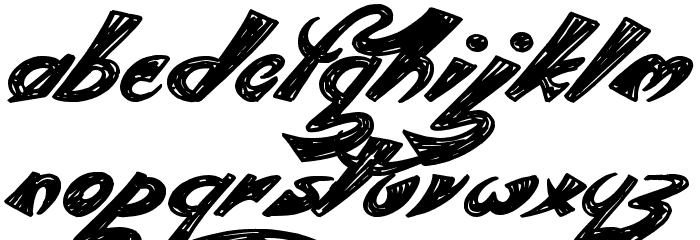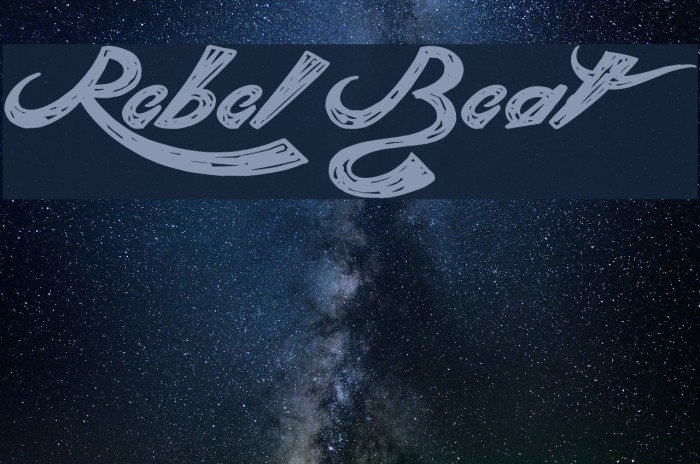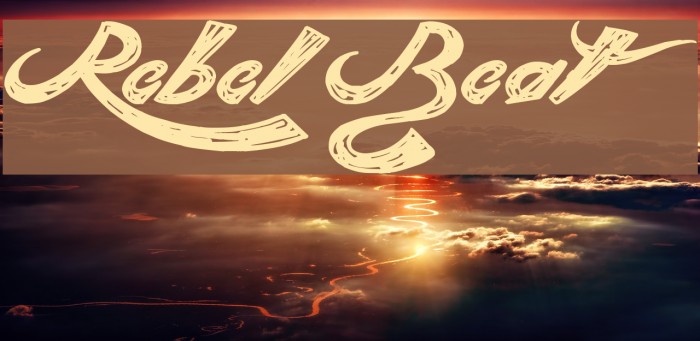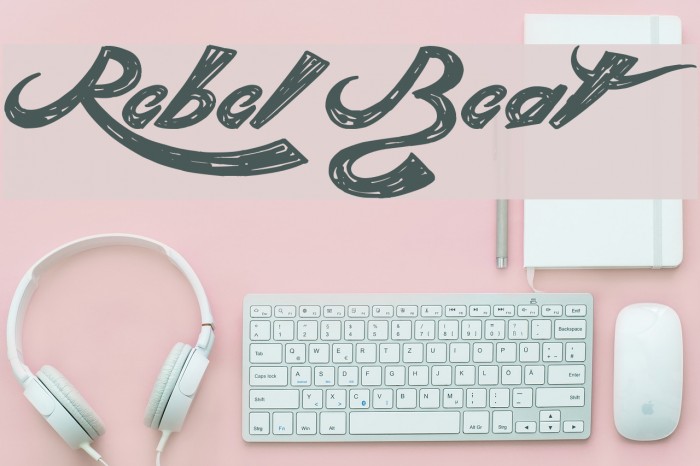
Rebel Beat Font
This font features a bold, expressive style with a hand-drawn appearance. The letters are characterized by thick, sweeping strokes and a dynamic, energetic flow. The uppercase letters have a dramatic flair, with exaggerated curves and angles, while the lowercase letters maintain a consistent, fluid motion. The overall design is reminiscent of graffiti or street art, with a rebellious and artistic vibe. The font's unique texture adds depth and character, making it stand out in any design. It is ideal for projects that require a bold statement or a creative, unconventional look.
A bold, expressive font with a hand-drawn, graffiti-inspired style.
- Proposed Projects: Perfect for album covers, posters, streetwear branding, and urban-themed designs.
- Overall Style: Modern, Artistic